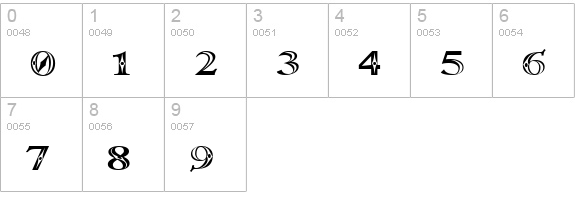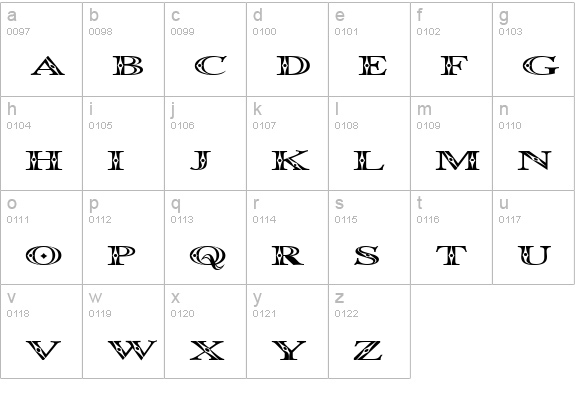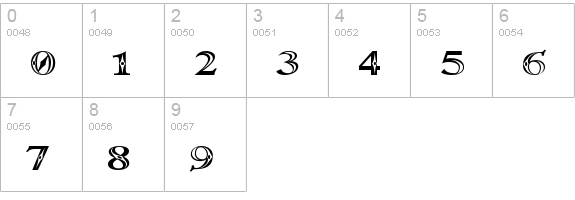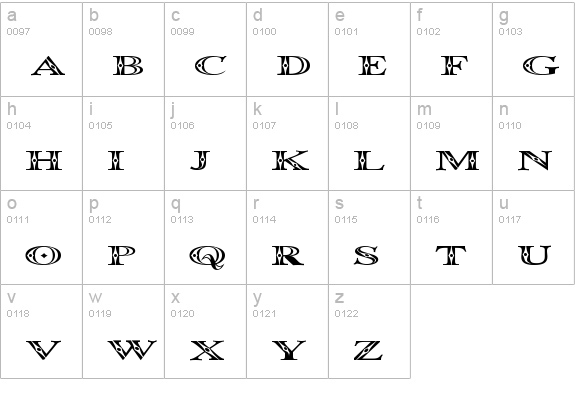
Occoluchi Minicaps font is a stylish and modern typeface that exudes a sophisticated charm. With its elegant design and unique minicaps style, this font is perfect for adding a touch of class to any project. The clean lines and sleek curves of Occoluchi Minicaps font make it versatile and suitable for a wide range of design applications. What sets Occoluchi Minicaps font apart is not only its aesthetic appeal but also the fact that it is available for free download at FontsMarket.com. This means you can easily access this high-quality font without any cost, making it a valuable addition to your font collection. Whether you're working on branding, print materials, web design, or any other creative project, Occoluchi Minicaps font is sure to elevate your work with its distinctive look and feel. Don't miss out on the opportunity to enhance your designs with Occoluchi Minicaps font. Download it for free today at FontsMarket.com and start creating stunning visuals that stand out from the rest.